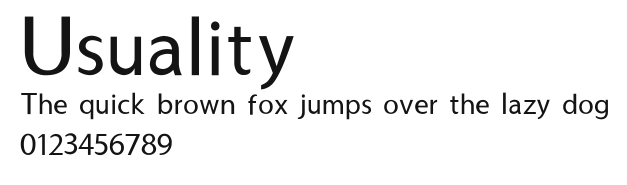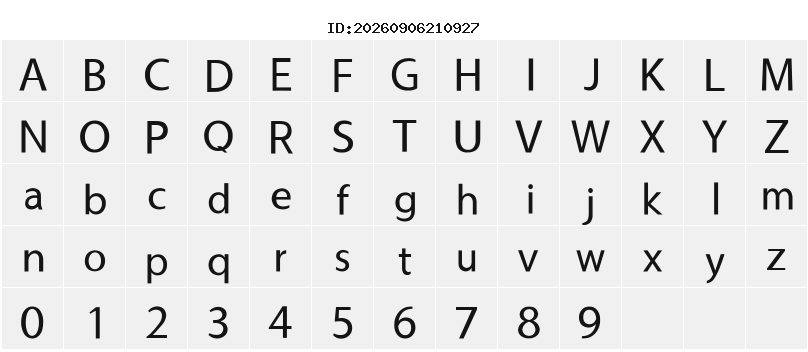
• Font Name: Usuality
• Font ID: Usuality
• Full Font Name: Usuality
• PostScript Name: Usuality
About Usuality.ttf
Usuality.ttf is a modern, elegant sans-serif font designed for ultimate readability and visual harmony. Perfect for branding, headlines, web design, and print materials.